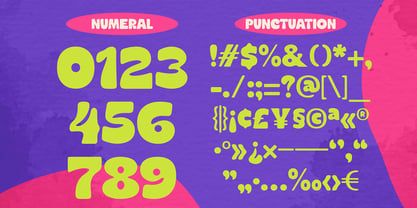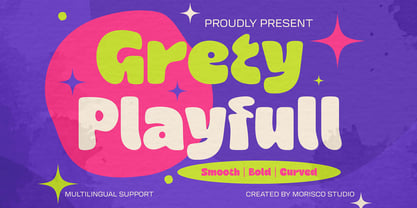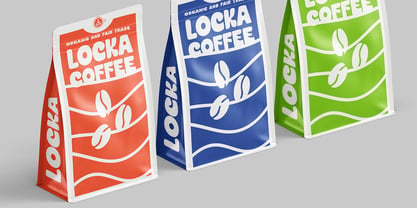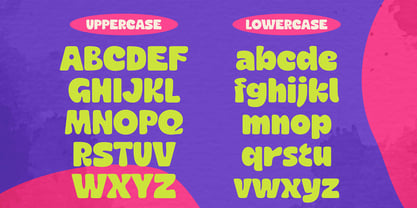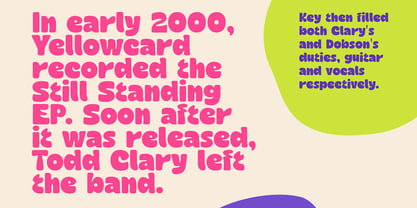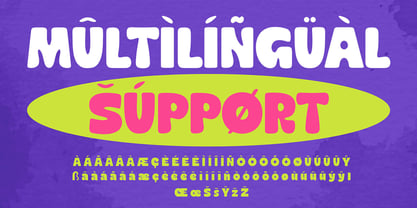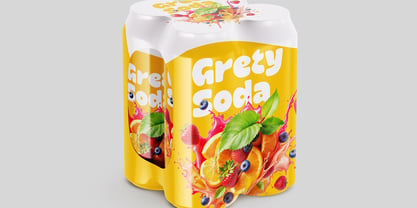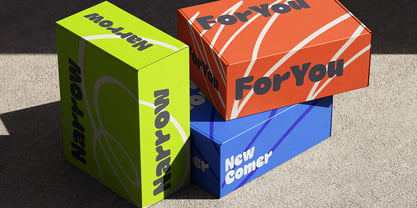
Grety Playfull
The Grety Playfull Font Family was designed by Fathur Rahman and published by Morisco Studio. Grety Playfull contains 1 styles. More about this family
Grety Playfull is a playfull and bold font with a unique character designed by Morisco Studio. This typeface is well-suited for headlines and any project, like branding, print templates, logos, and more.
Features:
* Uppercase & Lowercase
* Symbols & Punctuation
* Multilingual Support